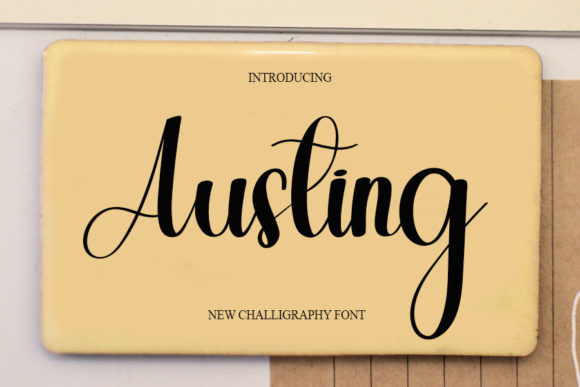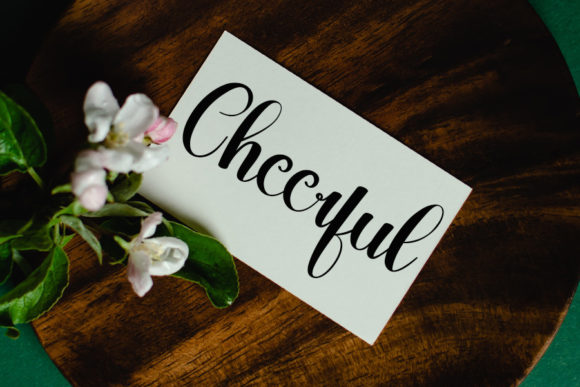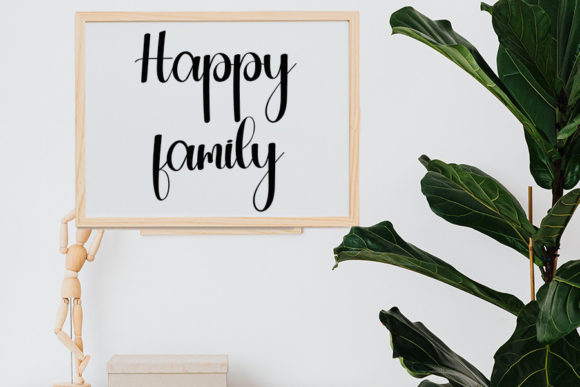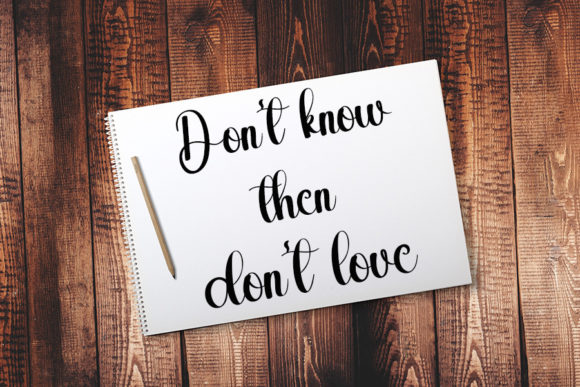
About Austing Font
Austing is a stylish handwritten font with a contemporary atmosphere and impeccable form, inspired by a timeless classic calligraphy. It will look outstanding in a wide range of contexts.